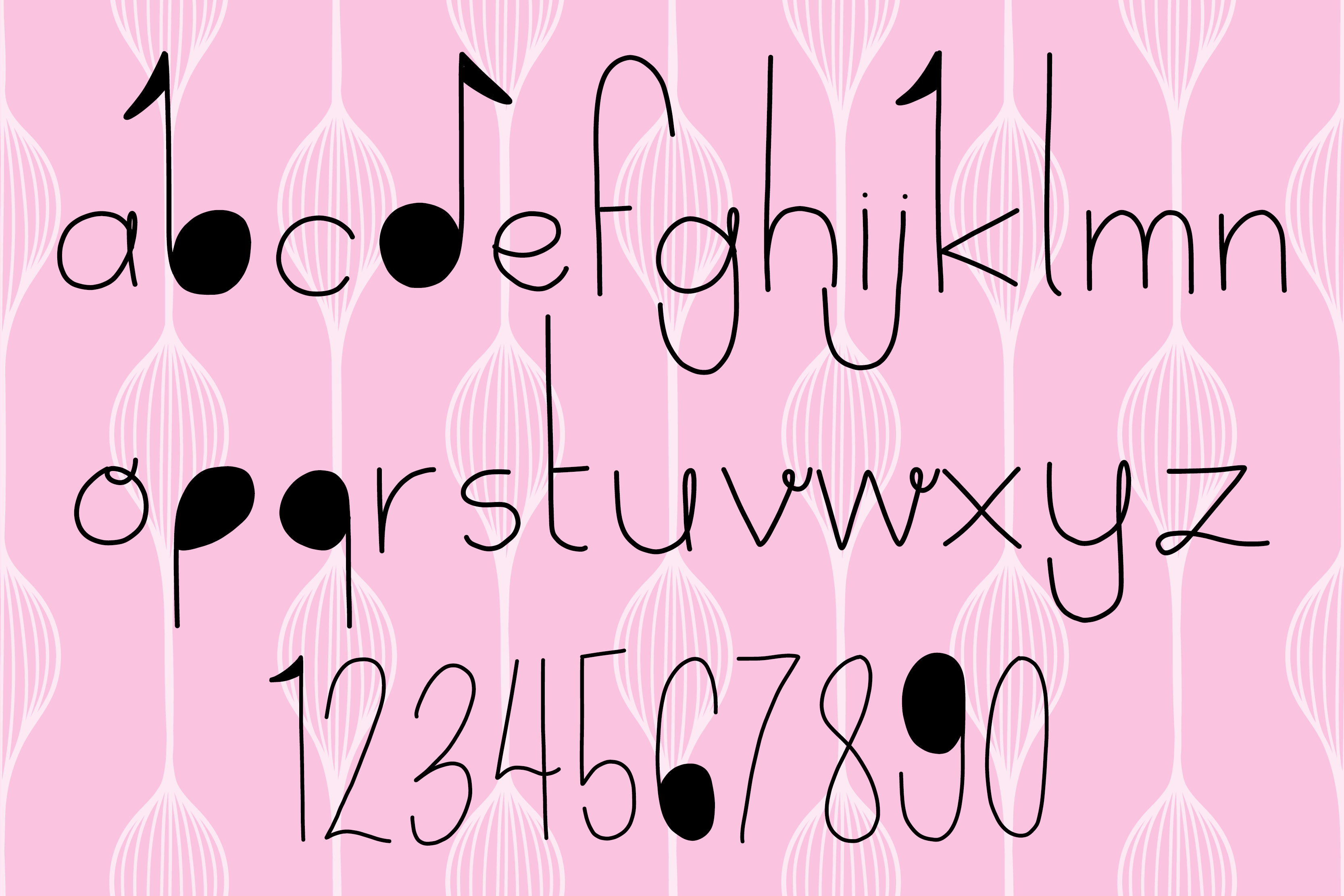
The Delicate Font: A Sans Serif Beauty for Youthful Designs
In the world of typography, fonts play a crucial role in conveying the tone and personality of a design. When it comes to creating youthful and playful projects, the right font can make all the difference. This is where the Delicate font comes in – a namesake font that embodies the qualities of delicacy and thinness, making it perfect for designers and crafters looking to add a touch of elegance to their work.
What is the Delicate Font?
The Delicate font is a sans serif font, characterized by its clean and minimalist design. The font’s delicate and thin lines give it a light, airy feel that is both visually appealing and easy on the eyes. This makes it an excellent choice for designs that require a subtle yet sophisticated touch.
Key Features of the Delicate Font
- Delicate and thin lines: The font’s slender lines give it a fragile, yet elegant appearance that is perfect for youthful and playful designs.
- Sans serif design: The font’s sans serif style makes it highly legible, even at small sizes, and allows it to blend seamlessly into a variety of design landscapes.
- Youthful and playful vibe: The Delicate font’s lighthearted and carefree feel makes it an excellent choice for designs aimed at a younger audience or for projects that require a playful touch.
Use Cases for the Delicate Font
The Delicate font is versatile and can be used in a range of design projects, including:
- Branding and logos: The font’s unique and elegant design makes it perfect for creating custom logos and branding materials that require a touch of sophistication.
- Digital and print media: The Delicate font is suitable for use in digital and print media, including brochures, flyers, posters, and social media graphics.
- Web design: The font’s clean and minimalist design makes it an excellent choice for web design, particularly for websites that require a light and airy feel.
- Crafting and DIY projects: The Delicate font is also perfect for crafters and DIY enthusiasts looking to add a personal touch to their projects, such as handmade cards, invitations, and scrapbooking.
Tips for Using the Delicate Font
To get the most out of the Delicate font, here are some tips to keep in mind:
- Pair with bold fonts: The Delicate font pairs well with bold, contrasting fonts that can help to create visual interest and hierarchy in your design.
- Use in moderation: While the Delicate font is beautiful, it’s best used in moderation to avoid overwhelming the design. Use it for headings, titles, or key messages to create a clear visual hierarchy.
- Experiment with colors: The Delicate font looks great in a range of colors, so don’t be afraid to experiment and find the perfect hue to match your brand or design.
The Delicate font is a beautiful and versatile sans serif font that is perfect for designers and crafters looking to add a touch of elegance and sophistication to their work. With its delicate and thin lines, youthful and playful vibe, and high legibility, this font is sure to become a go-to choice for a range of design projects. Whether you’re creating branding materials, digital media, or crafting and DIY projects, the Delicate font is sure to impress.